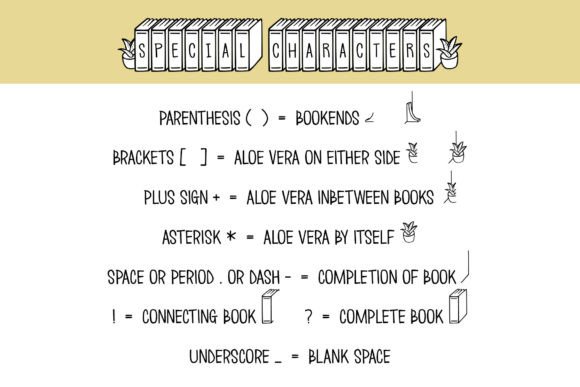
The Perfect Font for Book Lovers: Uncovering the Magic of Book Ends Font
Have you ever been browsing through a quaint bookstore or antique shop, running your fingers over the spines of vintage novels, and suddenly, the perfect idea strikes? You envision a beautiful bookshelf, adorned with carefully curated books, and perhaps, a few decorative trinkets to add a touch of whimsy. This is exactly the kind of creative moment that inspired the Book Ends Font, a quirky and charming typeface designed specifically for book lovers.
The Book Ends Font is more than just a stylish font – it’s a tool for designers to add a personal touch to their bookshelf-inspired designs. With its unique bookend characters and customizable elements, this font is a game-changer for anyone looking to create visually appealing layouts. Whether you’re designing a book cover, a book review, or a book-themed graphic, the Book Ends Font is sure to add a touch of elegance and sophistication.
Book Ends Font Key Features
- Unique Characteristics: Book Ends Font features a unique blend of serif and sans-serif elements, creating a distinctive and eye-catching visual effect.
- Font Style: The font is designed in a modern, elegant style, making it suitable for use in a variety of applications, including book titles, headings, and display text.
- Kerning and Ligatures: The font includes advanced kerning and ligature features, ensuring that characters are displayed with precision and flair.
Book Ends Font Review
Overall, I was excited to dive into the Book Ends Font and see what it had to offer. As a designer, I’m always on the lookout for unique and stylish fonts that can elevate a design project. Here’s my honest review.
- The Book Ends Font has a beautiful, hand-crafted feel that’s perfect for projects that need a touch of elegance.
- The font’s ligatures and swashes add a level of sophistication and flair that’s hard to find in other fonts.
- The character set is extensive, making it suitable for a wide range of projects, from body text to headlines.
- The font’s bold weight can be a bit too bold at times, overpowering the surrounding text.
- The font’s italic weight can be a bit too stylized, making it difficult to read in large quantities.
Overall, the Book Ends Font is a beautiful addition to any designer’s toolkit. While it may have some limitations, its unique character and extensive character set make it a great choice for projects that need a touch of elegance and sophistication.
Book Ends Font is a versatile font that can be used for a variety of purposes, including:
Headlines and titles
Body text for a vintage or retro-themed design
Quotes and captions
For best results, pair Book Ends Font with other fonts that have a similar vintage or retro feel.
Alternatives to Book Ends Font